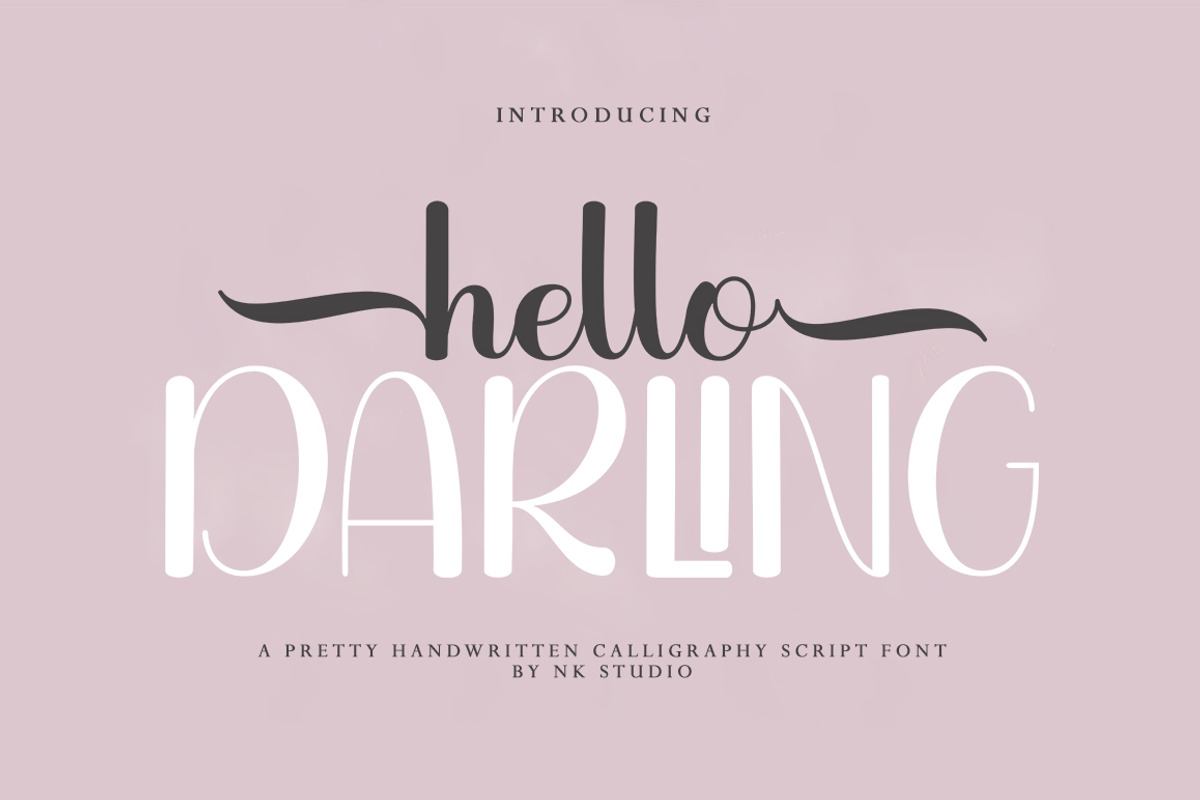
Please note, to use this font for commercial purposes, you must purchase the full version. Hello Darling is a charming and elegant script font that adds a personal, handwritten touch to any design. With its smooth curves and flowing letterforms, this font is perfect for creating logos, invitations, greeting cards, and branding materials. Whether you're working on a wedding invitation, a creative brand identity, or a unique project, Hello Darling brings a warm, inviting feel to your work. Test it out and enjoy free download access for personal use. Experience the elegance and style of Hello Darling Font Free Download before purchasing the commercial license. Add a graceful, handwritten touch to your designs with Hello Darling.